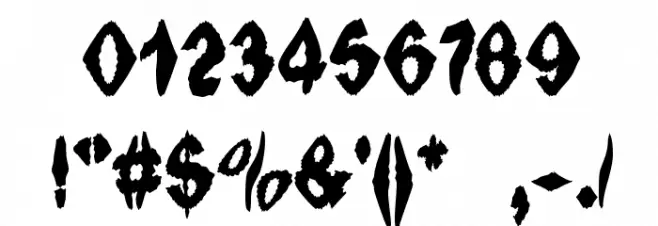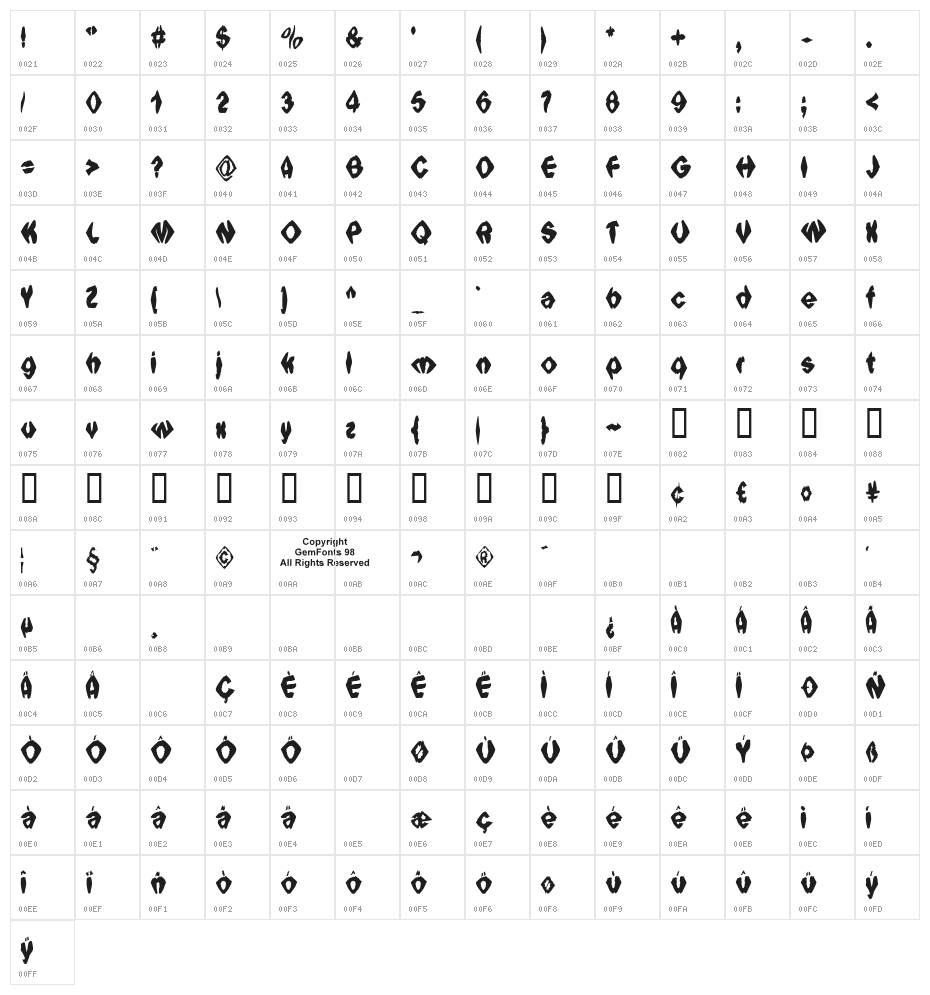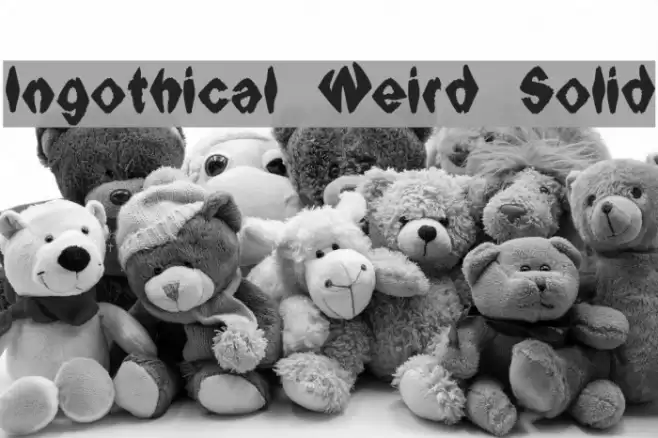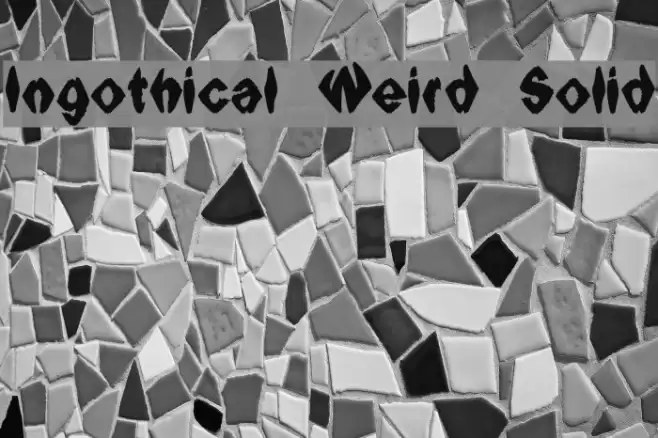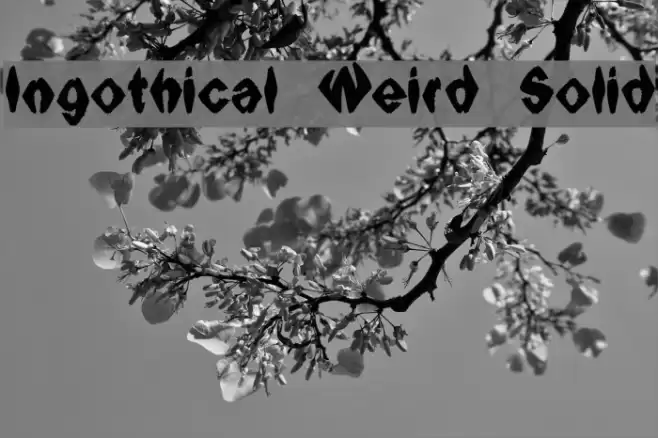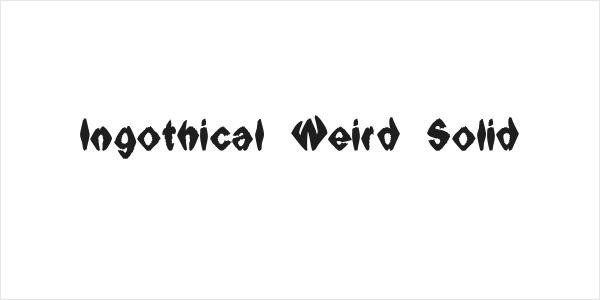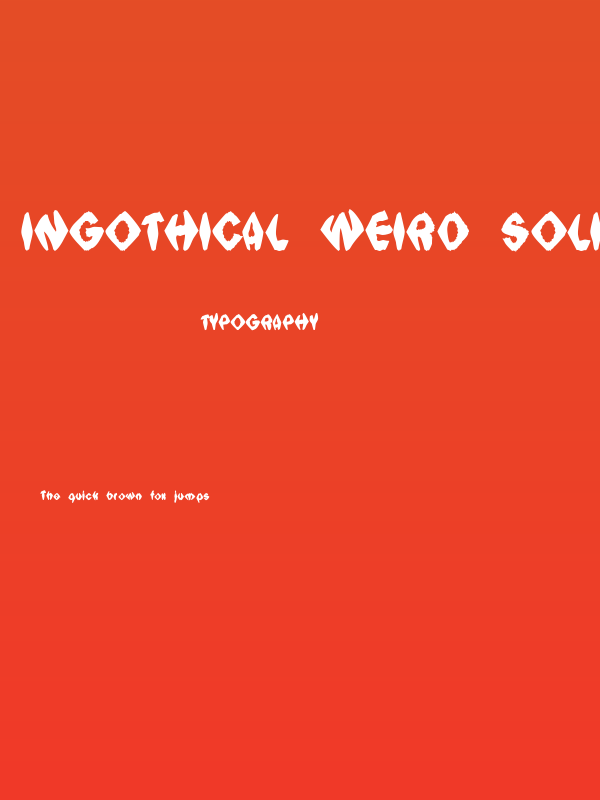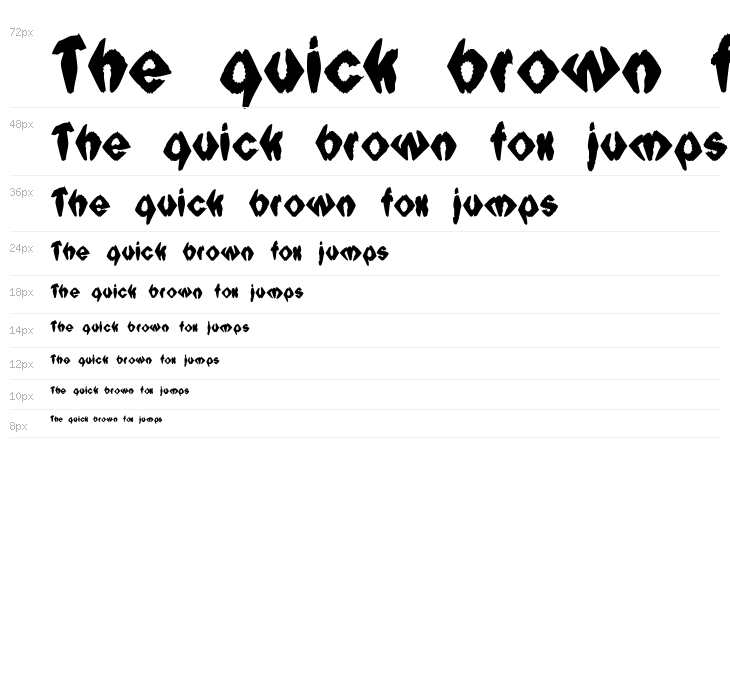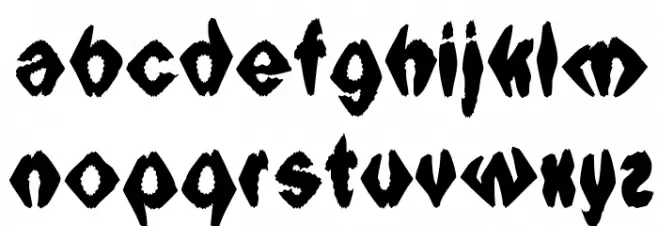
Ingothical Weird Solid Font
Ingothical Weird Solid Description
This font exhibits a bold and unconventional style with a distinctly gothic and abstract appearance. The characters are heavily stylized, featuring sharp angles and irregular shapes that give them a unique, almost tribal aesthetic. The uppercase and lowercase letters maintain a consistent design language, with jagged edges and a solid, filled-in look that emphasizes their boldness. Numbers and special characters follow the same design principles, ensuring a cohesive appearance across all glyphs. This font's striking and edgy style makes it suitable for projects that require a dramatic and eye-catching typeface.
| Proposed Projects | Ideal for album covers, posters, video game titles, and any project requiring a dramatic, eye-catching typeface. |